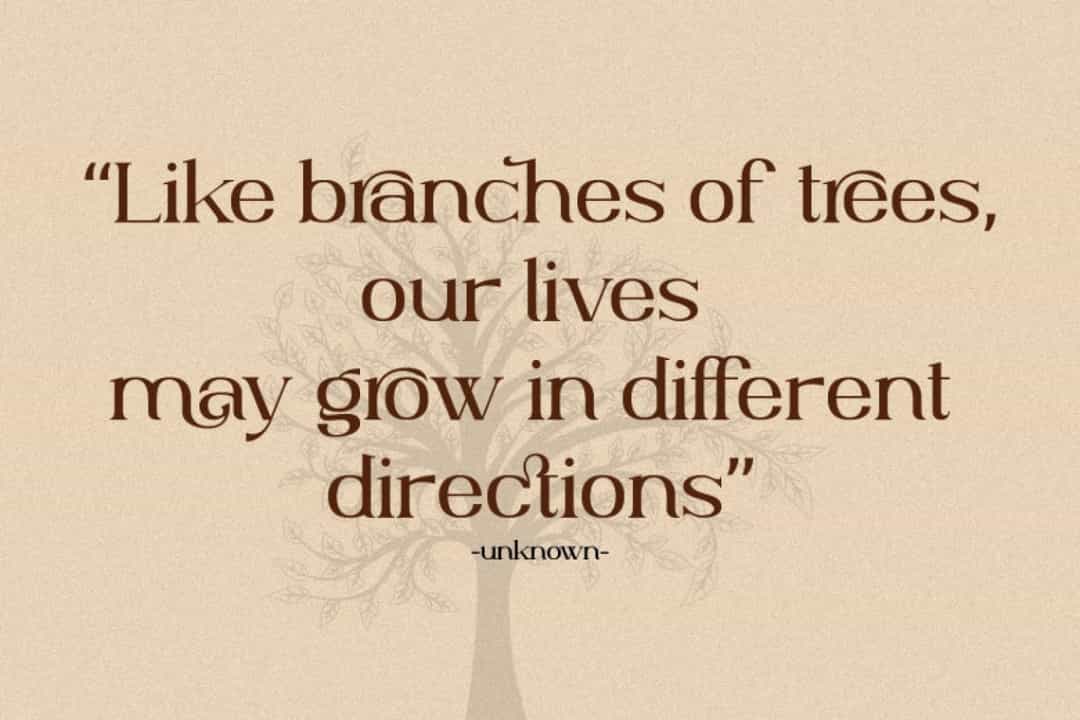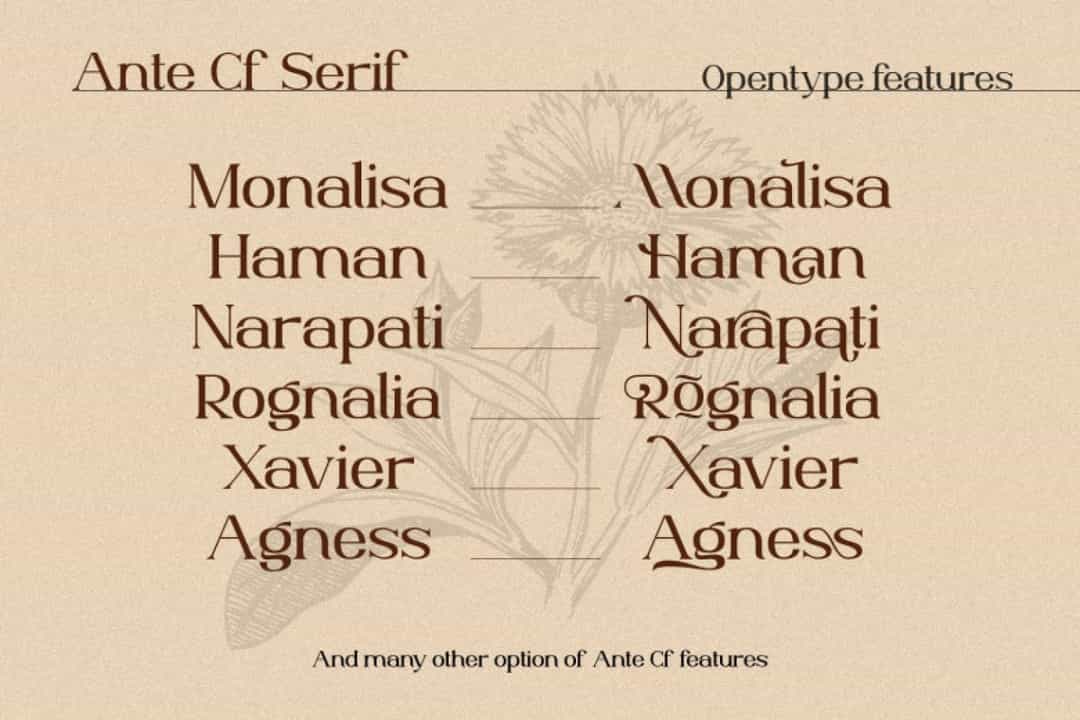
Ante Cf is an elegant yet modern stylish serif font. Part of the Ante Cf family and designed with an elegant yet classic appearance. Versatile font with many styles you may like; can also be combined with script or handwritten fonts to complete projects successfully.